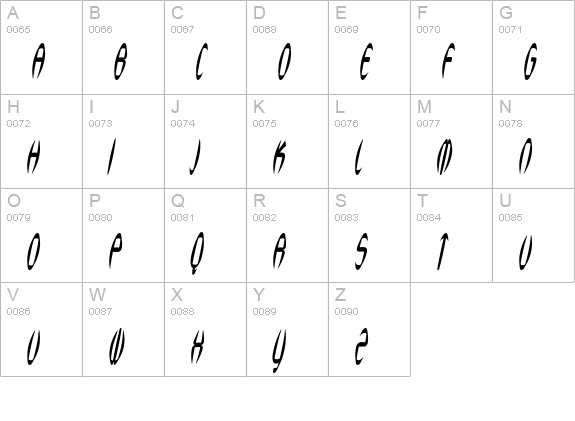
SF Synthonic Pop Condensed Oblique Font Details
SF Synthonic Pop Condensed Oblique is a distinctive, condensed-width, italic variant in the SF typeface family \xE2\x80\x94 well suited to design and typography projects.
SF Synthonic Pop Condensed Oblique font is a visually captivating typeface that effortlessly combines elements of science fiction, synthwave aesthetics, and pop culture into one harmonious design. Its condensed and oblique form further amplifies its futuristic appeal, making it ideal for various creative projects that require a touch of edginess and innovation. This font features sleek, geometric letterforms with a slight slant, adding a dynamic and energetic feel to any text. Its condensed nature allows for efficient use of space, making it perfect for headlines, titles, posters, and other graphic design applications that require an attention-grabbing presence. The oblique angle adds a sense of movement and sleekness, further enhancing the overall visual impact. SF Synthonic Pop Condensed Oblique font is designed with great attention to detail, ensuring that every character is perfectly balanced and visually pleasing. Its clean lines and sharp edges give it a modern and polished look that is bound to impress. The best part? This font is available for free download at FontsMarket.com, allowing you to effortlessly incorporate it into your projects without any financial burden. Whether you're a professional designer, a student, or simply someone looking to add a unique touch to their creations, SF Synthonic Pop Condensed Oblique font is a fantastic choice that won't cost you a dime. So go ahead and unleash your creativity with SF Synthonic Pop Condensed Oblique font. Its futuristic charm and free availability make it a must-have for anyone looking to make a bold statement with their typography. Download it now at FontsMarket.com and start transforming your designs into captivating masterpieces.